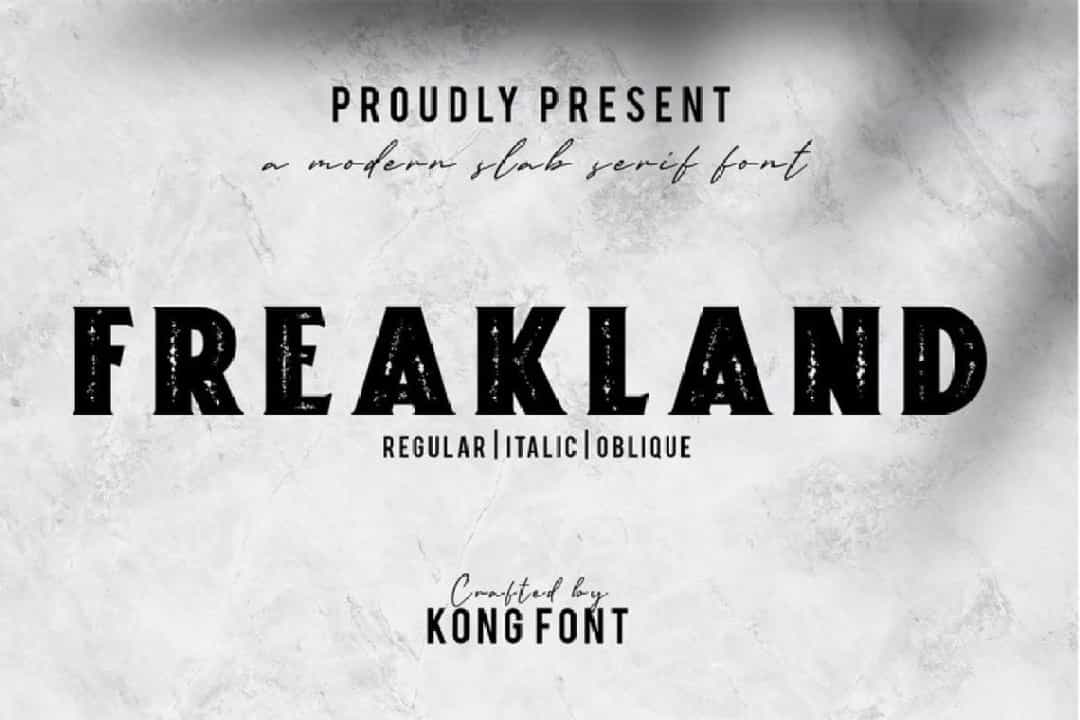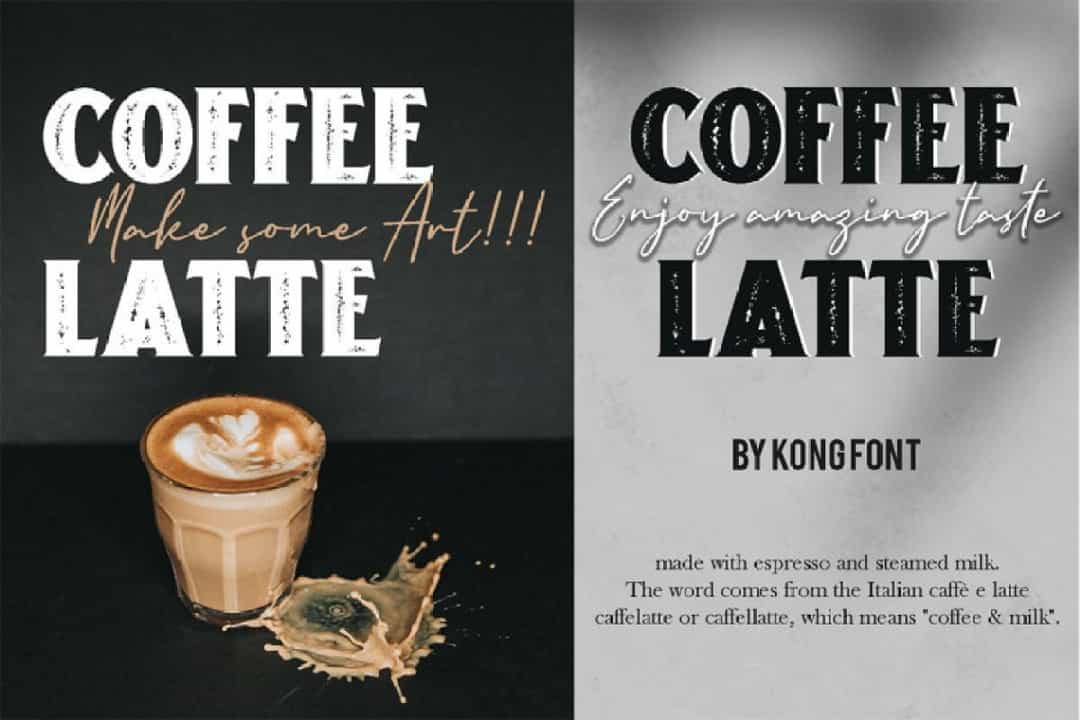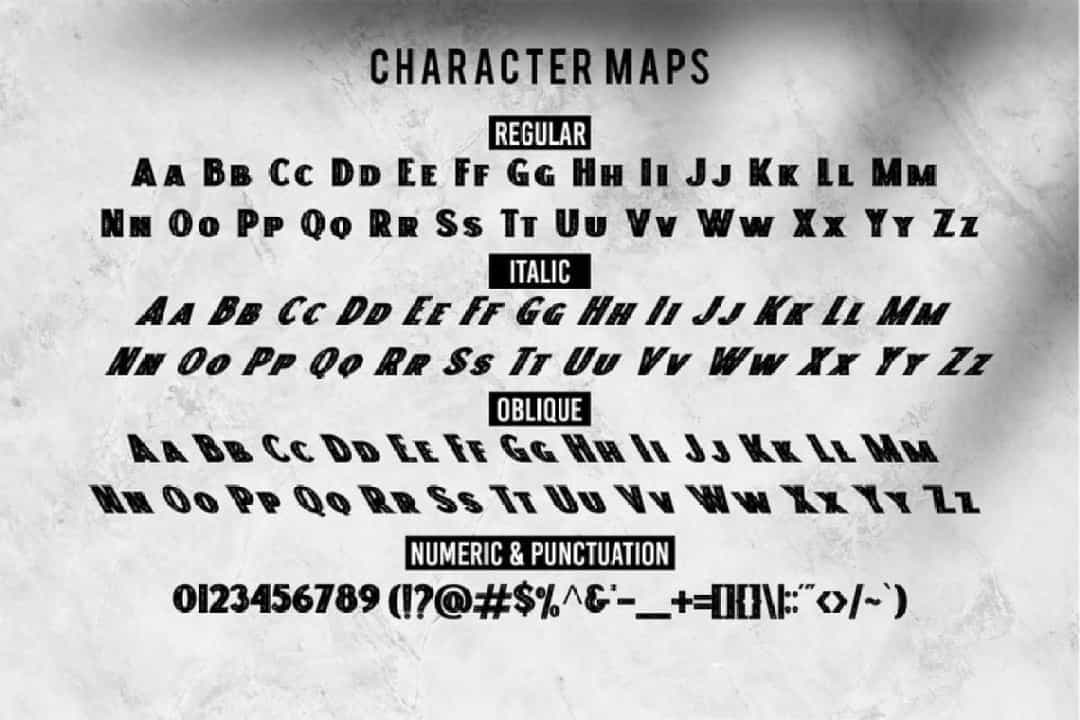
Freakland font is a stylish modern serif font with an All Caps concept that has a good and somewhat balanced design, provided by Fontkong. It contains many capital letters for designers to experiment with; making this font ideal for headlines, posters, logos, packages, T-shirts and etc.